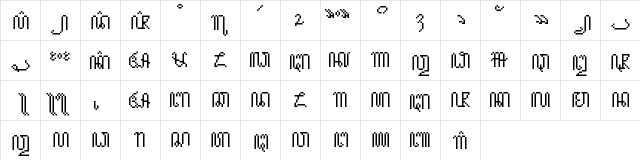
JavaneseHierogly Medium
Design Context for JavaneseHierogly Typeface
JavaneseHierogly is a composed and adaptable typeface that performs quietly and consistently across a wide range of design contexts.
Pro Tip: Use JavaneseHierogly in both headline and body roles to test its range before committing to a single application.